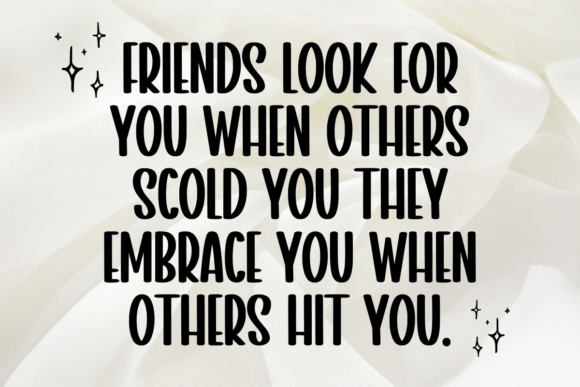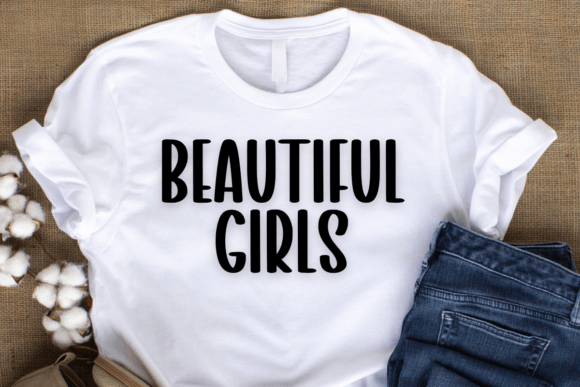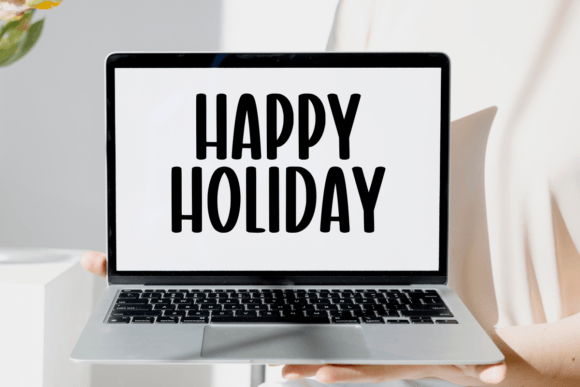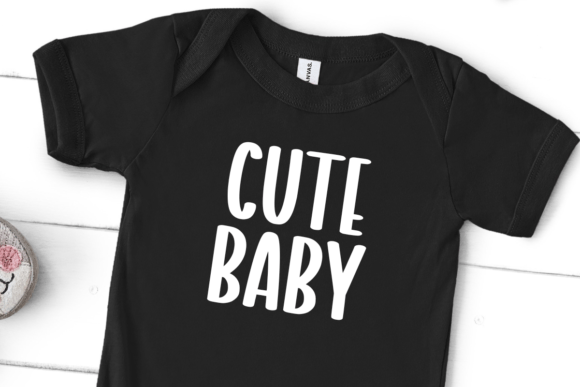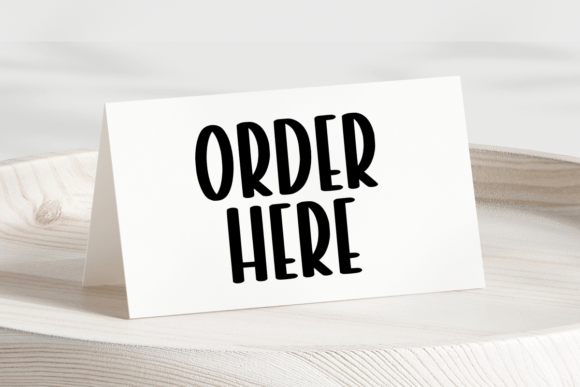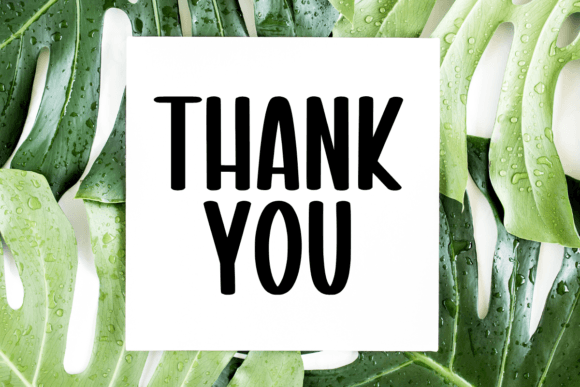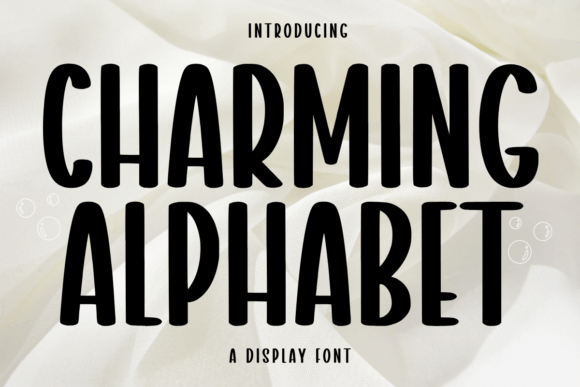
Discover the Charming Alphabet Font: A Perfect Blend of Clarity and Style
In the world of typography, a font can make all the difference in the success of a design project. Whether you’re working on a digital interface, print material, or crafting a beautiful handmade piece, the right font can elevate your work from ordinary to extraordinary. This is where the Charming Alphabet Font comes in – a neat and casual sans-serif font designed specifically for clarity and readability.
What Makes Charming Alphabet Font Stand Out?
Charming Alphabet Font boasts clean lines and balanced proportions, making it a versatile choice for a wide range of design projects. Its simplicity and modern appeal ensure that it remains a practical choice for effective communication. The font’s design is carefully crafted to provide an exceptional reading experience, whether on digital screens or in print.
Key Features of Charming Alphabet Font
• Clean and Simple Design: The font features clean lines and a straightforward design, ensuring that your text is easy to read and understand.
• Balanced Proportions: The balanced proportions of the characters contribute to the font’s readability and aesthetic appeal.
• Versatile: Charming Alphabet Font is suitable for various design projects, including digital interfaces, print materials, logos, and more.
• Modern Appeal: The font’s modern look makes it perfect for designers and crafters looking for a contemporary style.
Use Cases for Charming Alphabet Font
The versatility of Charming Alphabet Font makes it an excellent choice for a variety of projects. Here are some use cases where this font truly shines:
• Digital Interfaces: For websites, apps, and digital platforms, Charming Alphabet Font provides a clear and readable experience for users.
• Print Materials: Whether you’re designing brochures, posters, or business cards, this font ensures your message is communicated effectively.
• Crafting and DIY Projects: Add a modern touch to your handmade crafts, such as journals, cards, and decorations, with the elegant and simple style of Charming Alphabet Font.
• Logos and Branding: For businesses and personal brands, this font offers a clean and professional look that can help establish a strong brand identity.
Tips for Using Charming Alphabet Font
To get the most out of Charming Alphabet Font, consider the following tips:
• Pair with Complementary Fonts: While Charming Alphabet Font is versatile on its own, pairing it with complementary fonts can add depth and interest to your designs.
• Experiment with Sizes and Weights: Don’t be afraid to experiment with different sizes and weights of the font to create visual hierarchy and emphasis in your designs.
• Consider Color and Contrast: Ensure that your text stands out by choosing colors that provide sufficient contrast with the background.
Charming Alphabet Font is a valuable addition to any designer’s or crafter’s toolkit. Its blend of clarity, readability, and modern style makes it an excellent choice for a wide range of projects. By incorporating Charming Alphabet Font into your work, you can enhance the effectiveness of your communication and add a touch of elegance to your designs.
In the realm of typography, the right font can transform your design from good to great. Charming Alphabet Font, with its clean design, balanced proportions, and modern appeal, is an excellent choice for designers and crafters looking to enhance their projects. Give it a try and discover how this charming font can elevate your work to new heights.